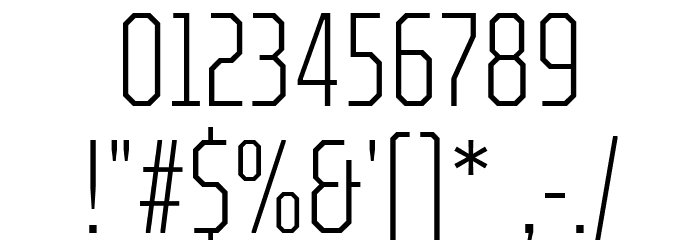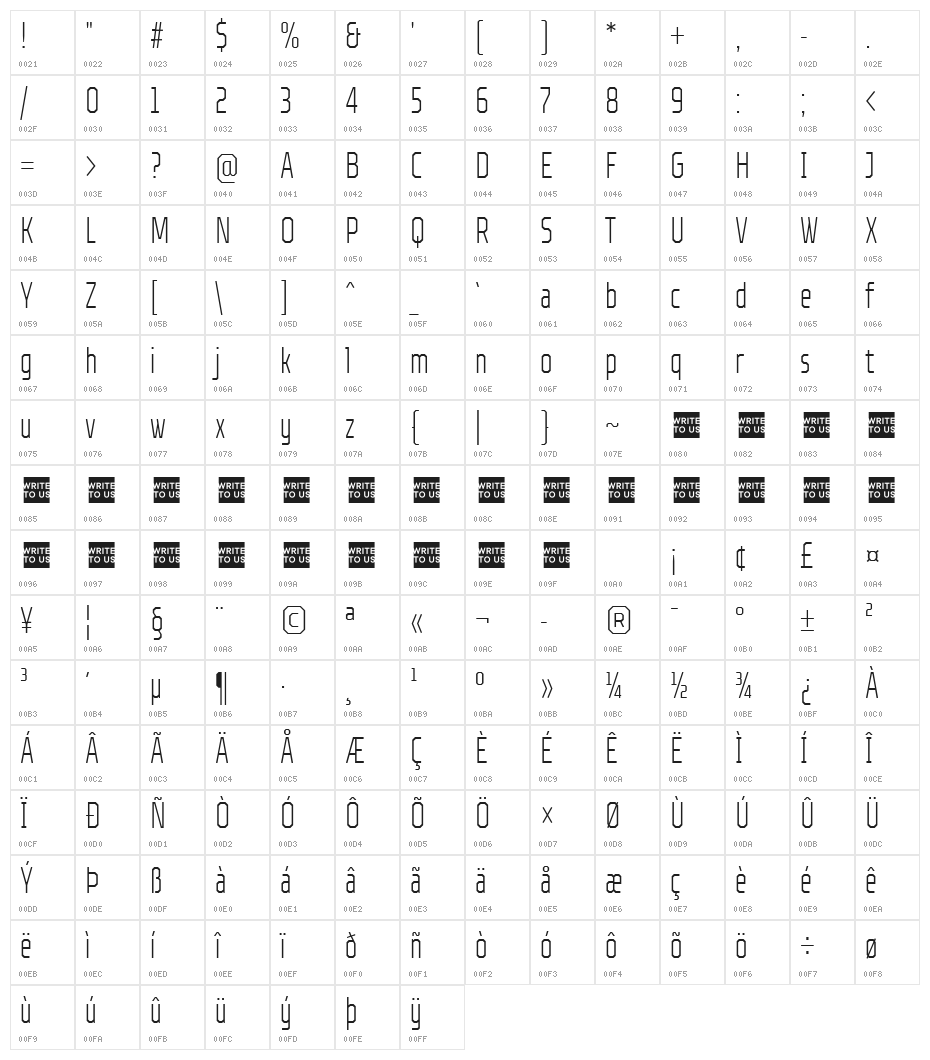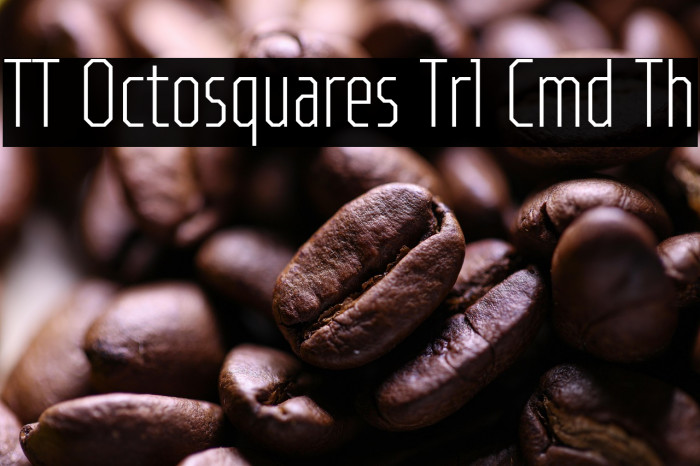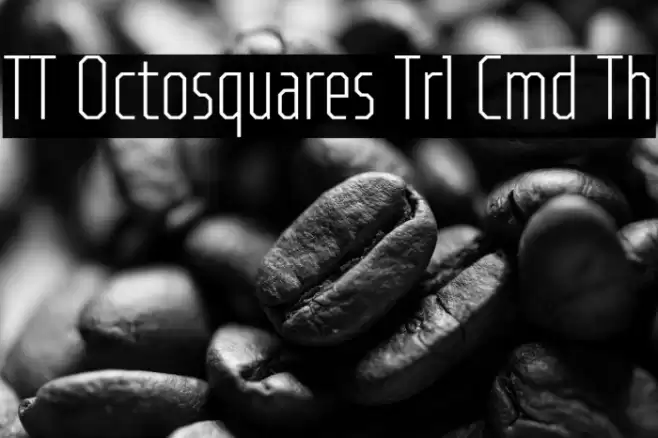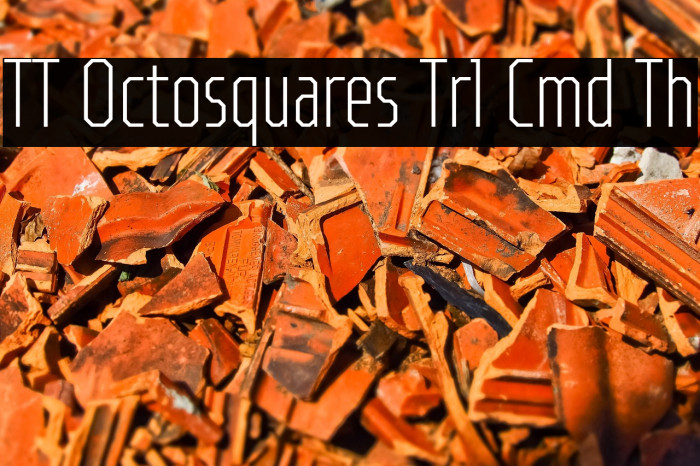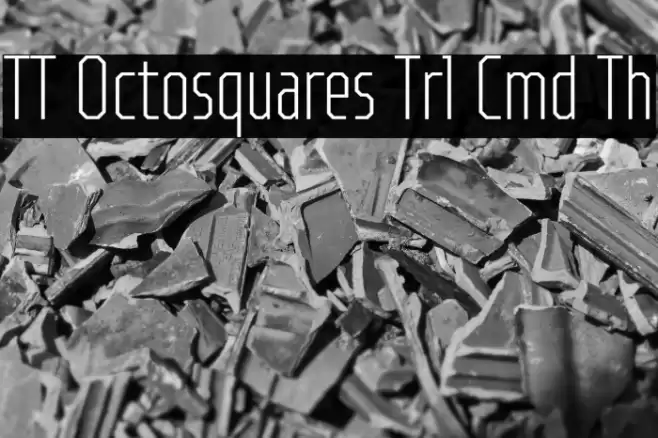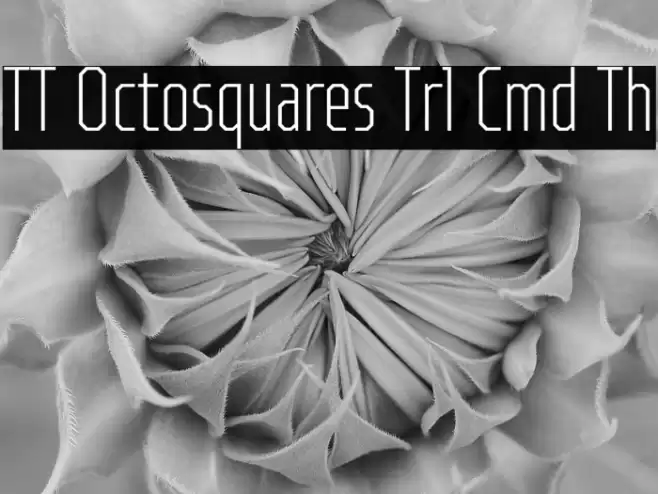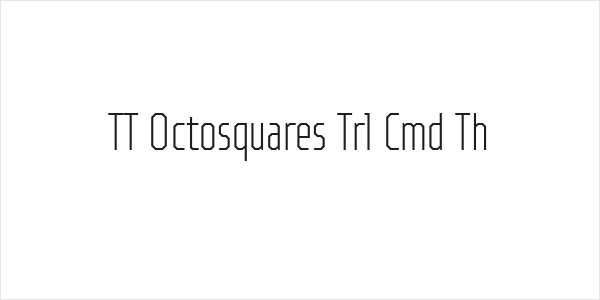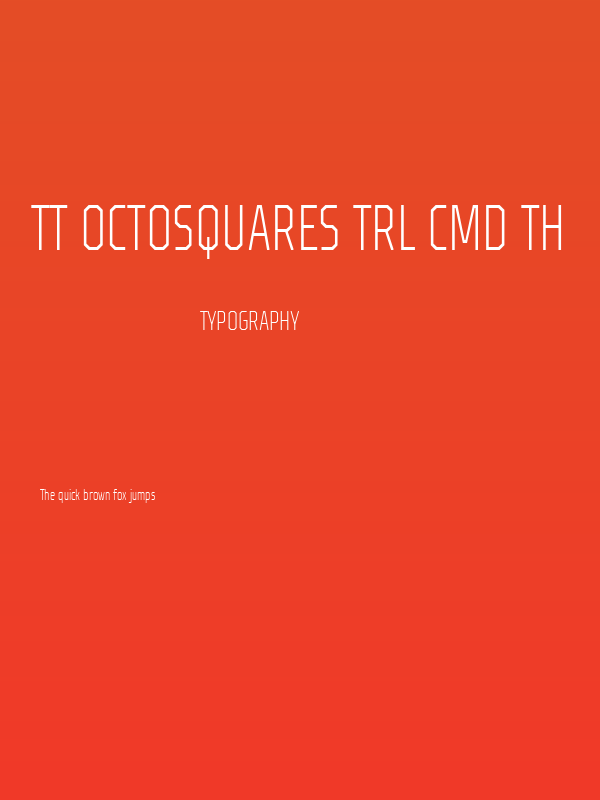
TT Octosquares Trl Cmd Th Font
TT Octosquares Trl Cmd Th Description
This font features a geometric and modern design with a distinct octagonal structure. The characters are composed of straight lines and sharp angles, giving it a futuristic and technical appearance. The uppercase and lowercase letters maintain a consistent height, while the numerals and special characters follow the same angular style. The overall look is clean and precise, making it suitable for digital and tech-oriented projects.
| Use Case | Logos, Headlines, Digital interfaces |
| Proposed Projects | Ideal for tech branding, digital interfaces, video game design, and futuristic posters. |